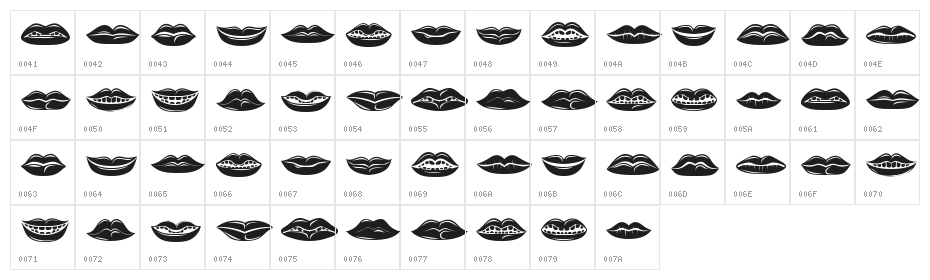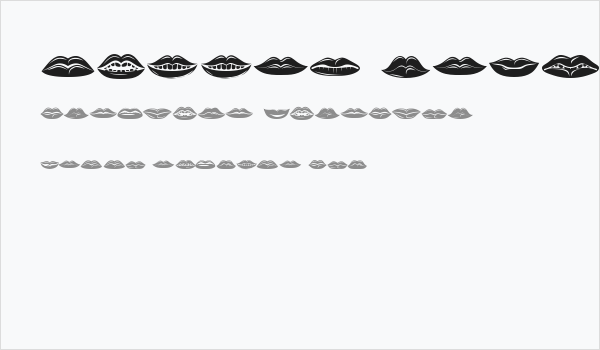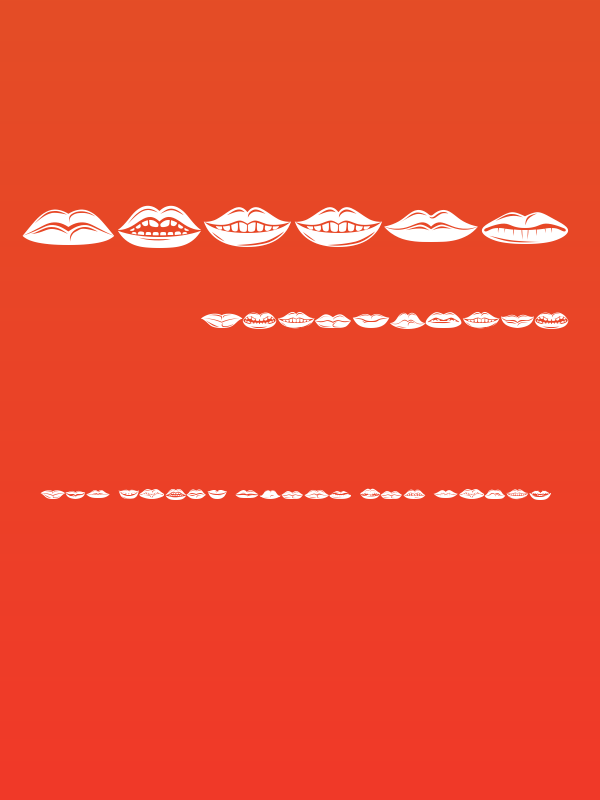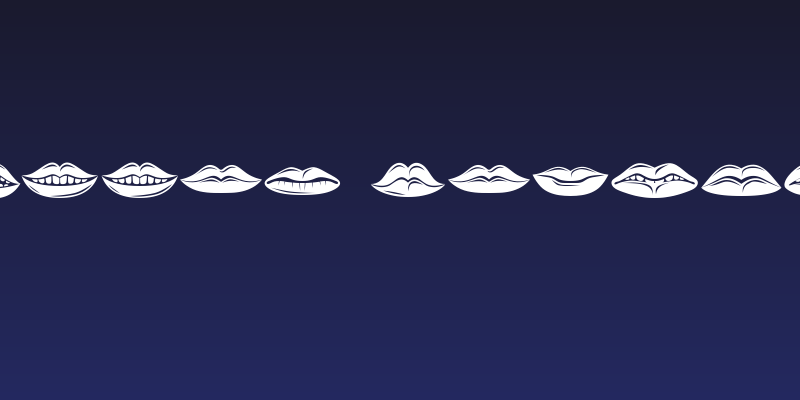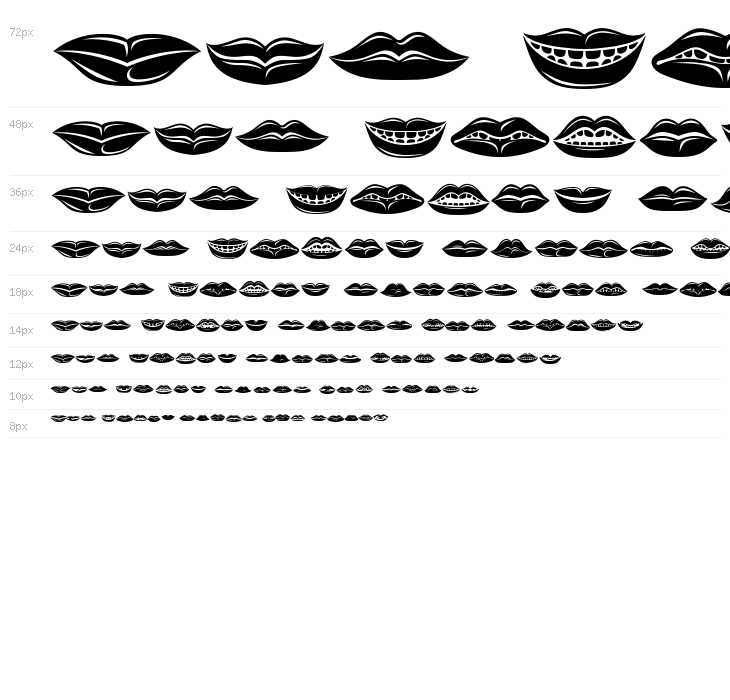
Lippen Regular Font
Lippen Regular Description
A playful and decorative font where each character is represented by a stylized pair of lips, featuring various expressions and details. The glyphs are bold, filled shapes with high contrast between the black fill and white highlights, creating a whimsical and eye-catching appearance.
| Overall Style | Decorative, Playful, Whimsical |
| Use Case | Logos, Headlines, Posters, Themed graphics |
| Proposed Projects | Greeting cards, party invitations, playful branding, childrenΓ’β¬β’s materials, novelty posters, ValentineΓ’β¬β’s Day designs. |